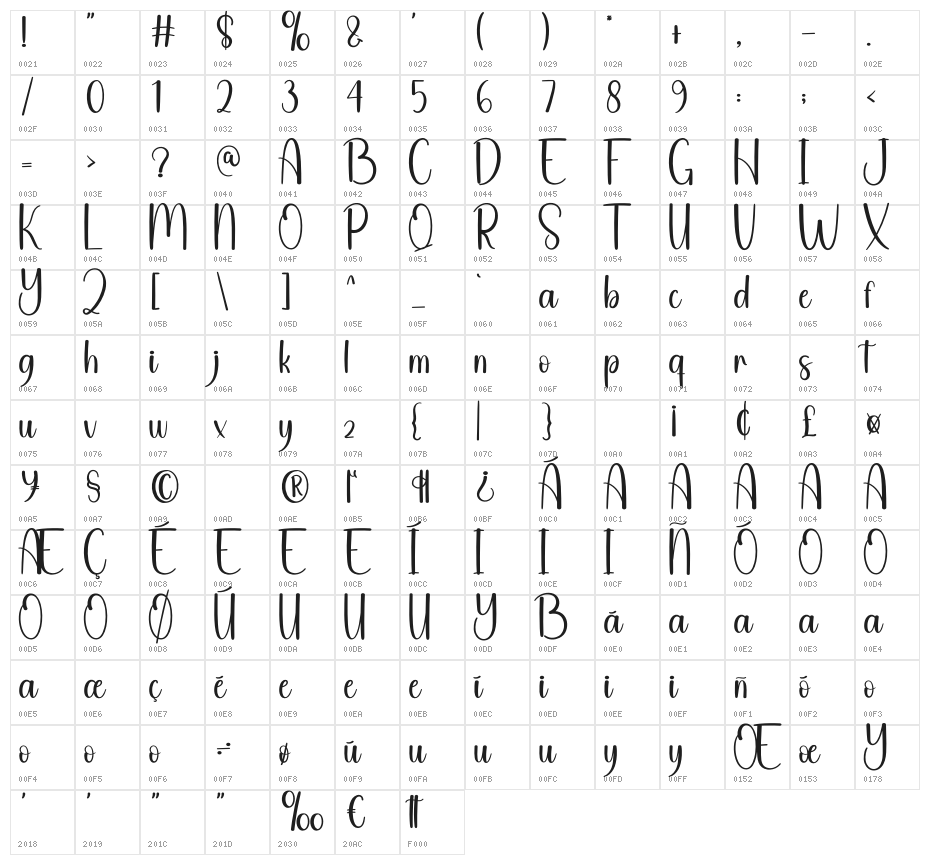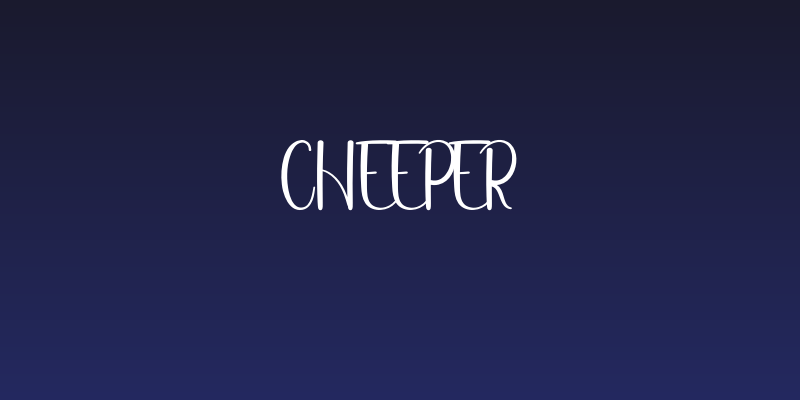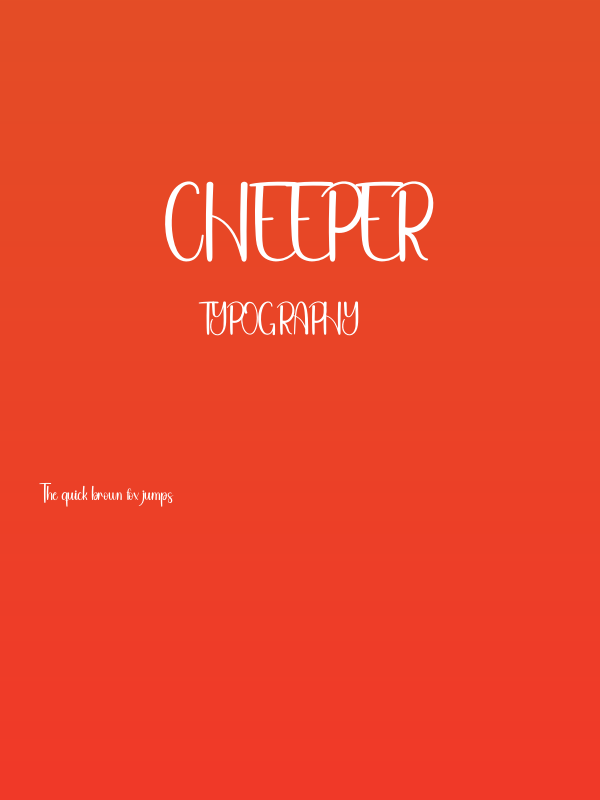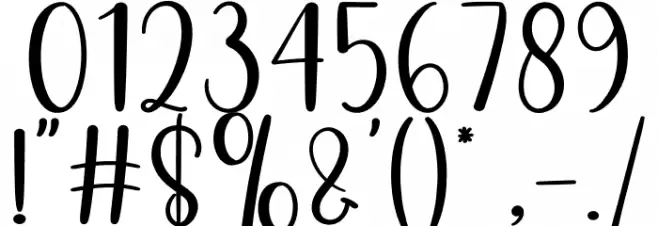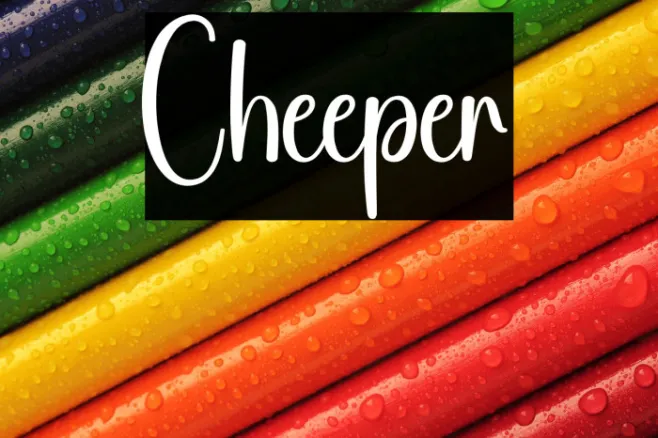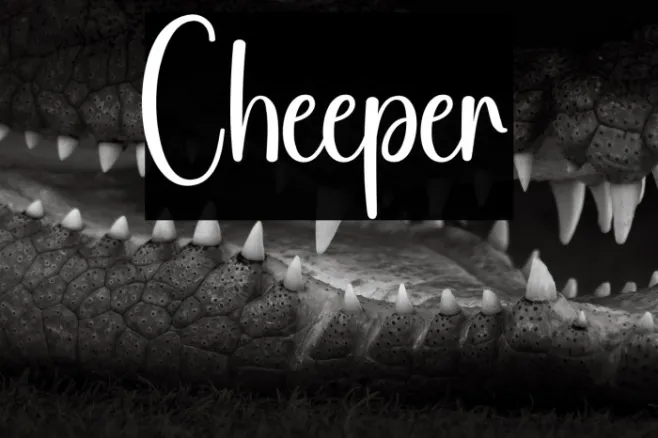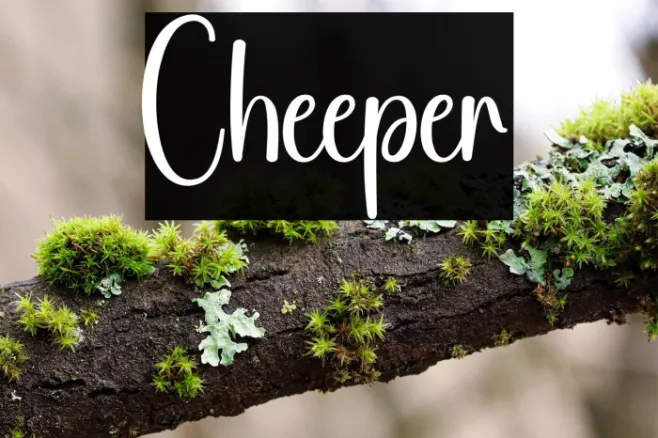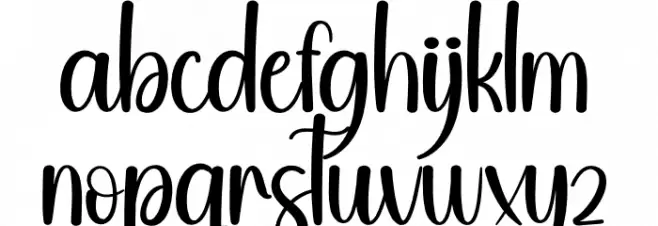
Cheeper Font
Cheeper Description
This font features a playful and whimsical style with tall, narrow characters that have a handwritten appearance. The letters are slightly slanted, adding a dynamic and lively feel. The strokes are consistent in thickness, giving it a clean and modern look. The uppercase letters are bold and prominent, while the lowercase letters maintain a friendly and approachable vibe. The numbers and special characters follow the same playful style, making it suitable for creative and informal projects.
| Width | Condensed |
| Overall Style | Playful |
| Use Case | Logos, Headlines, Informal text |
| Proposed Projects | Ideal for greeting cards, children's books, playful branding, and social media graphics. |